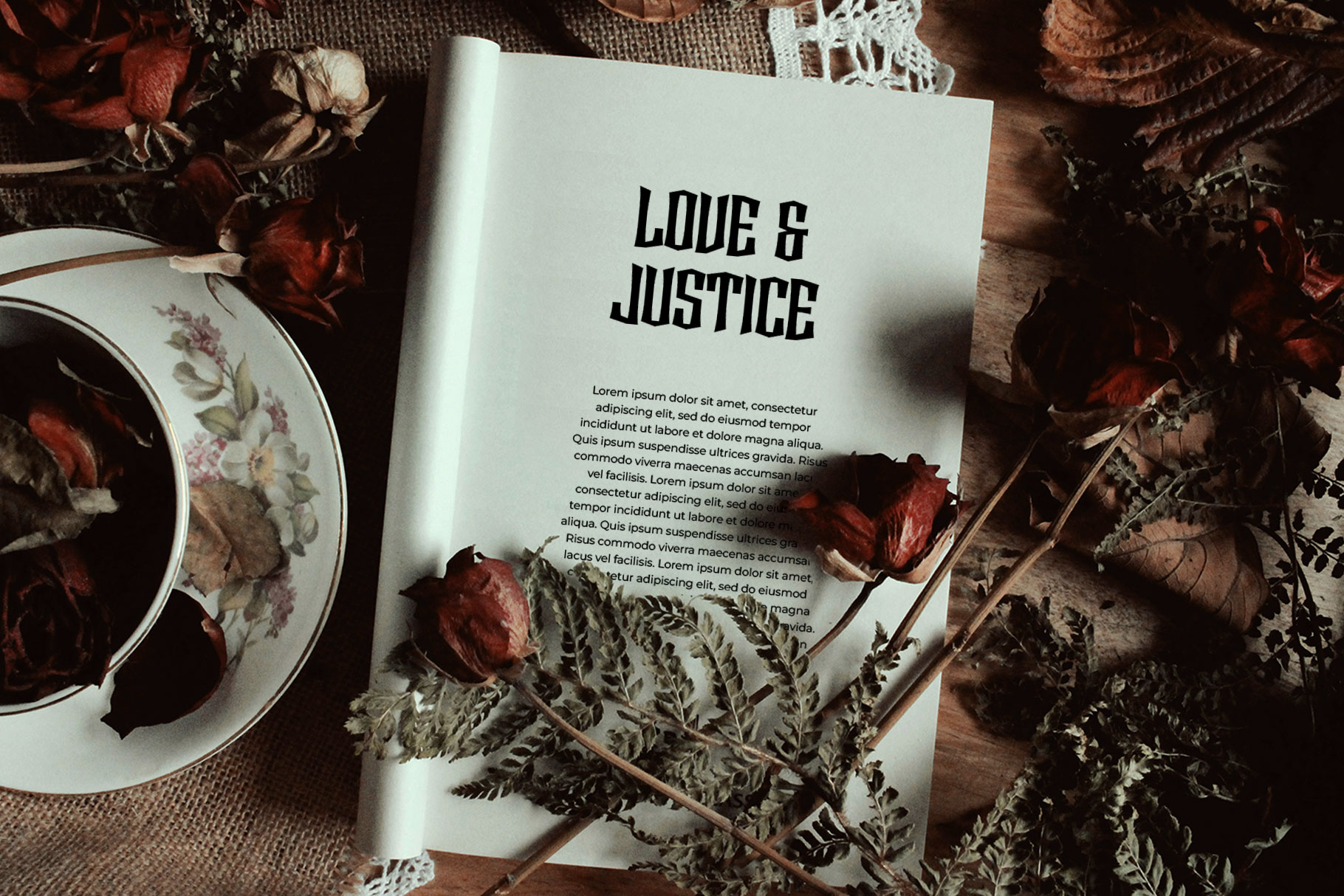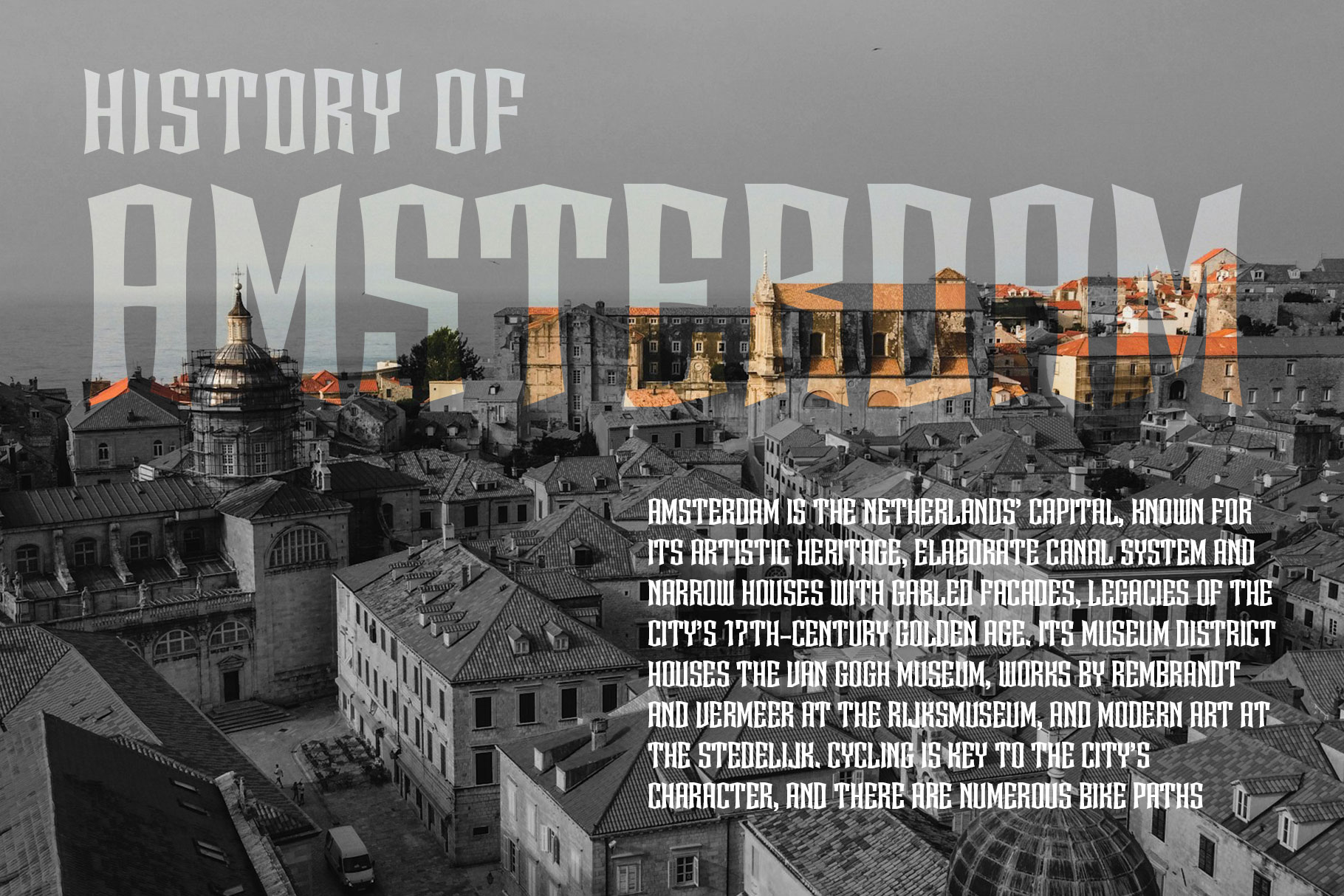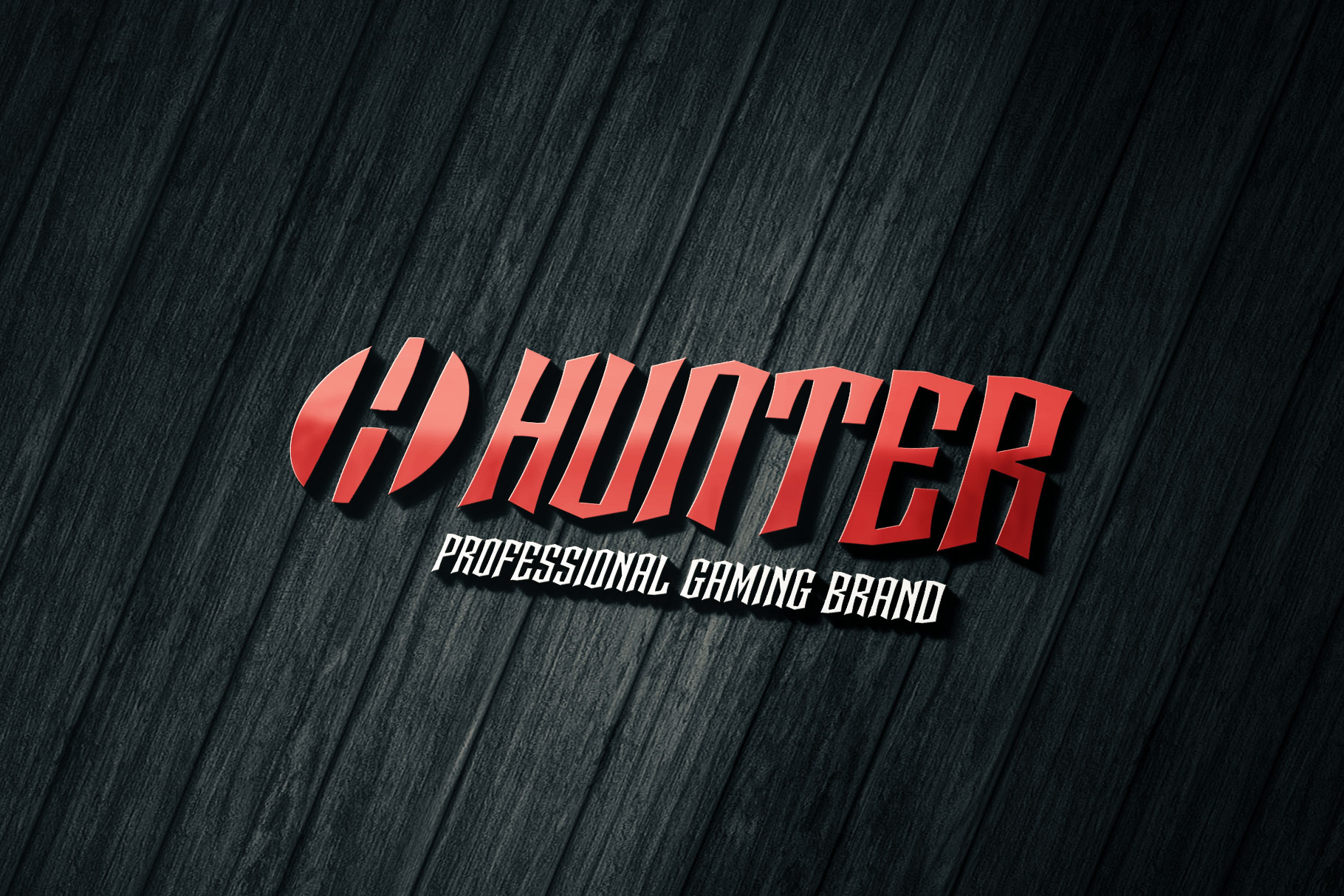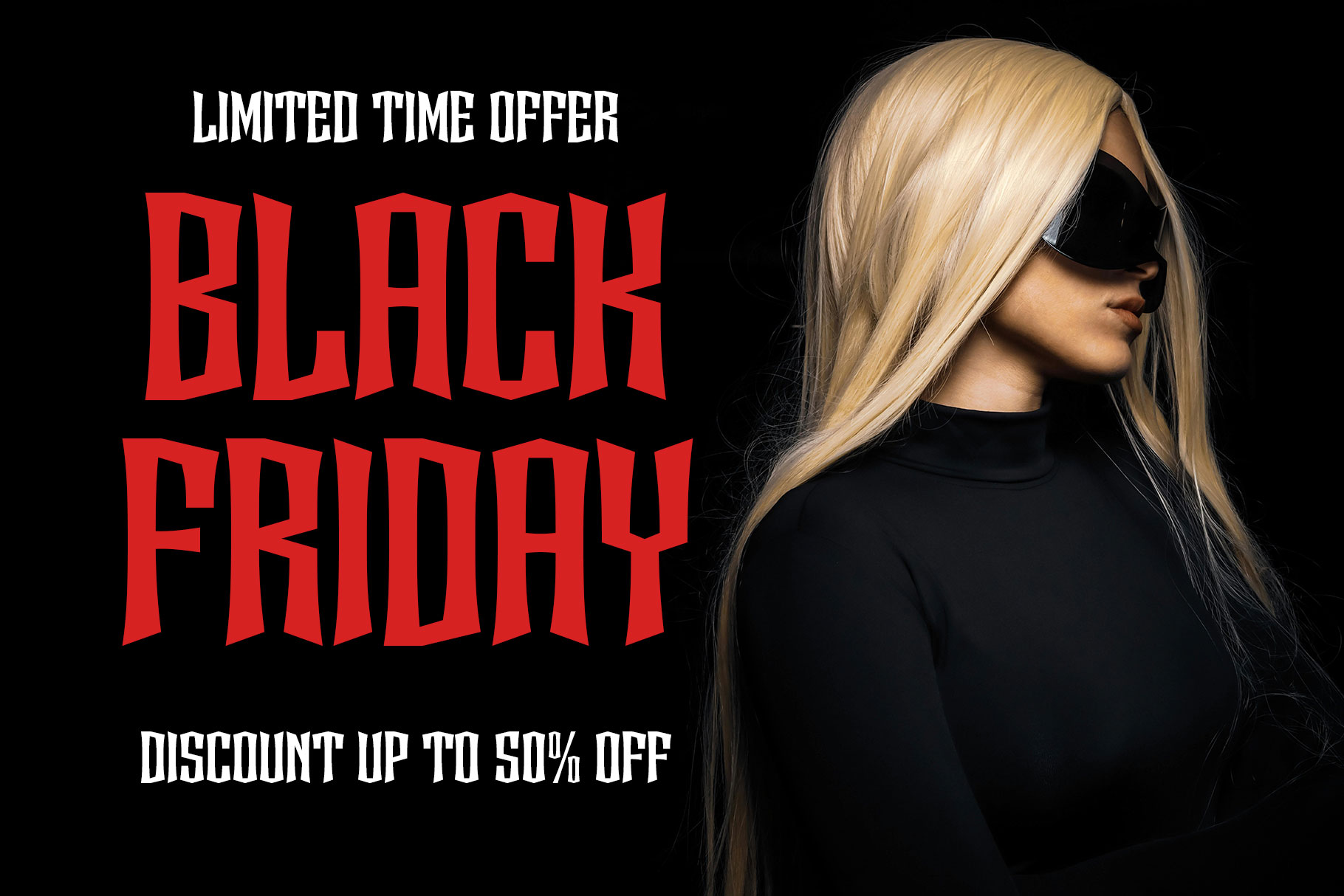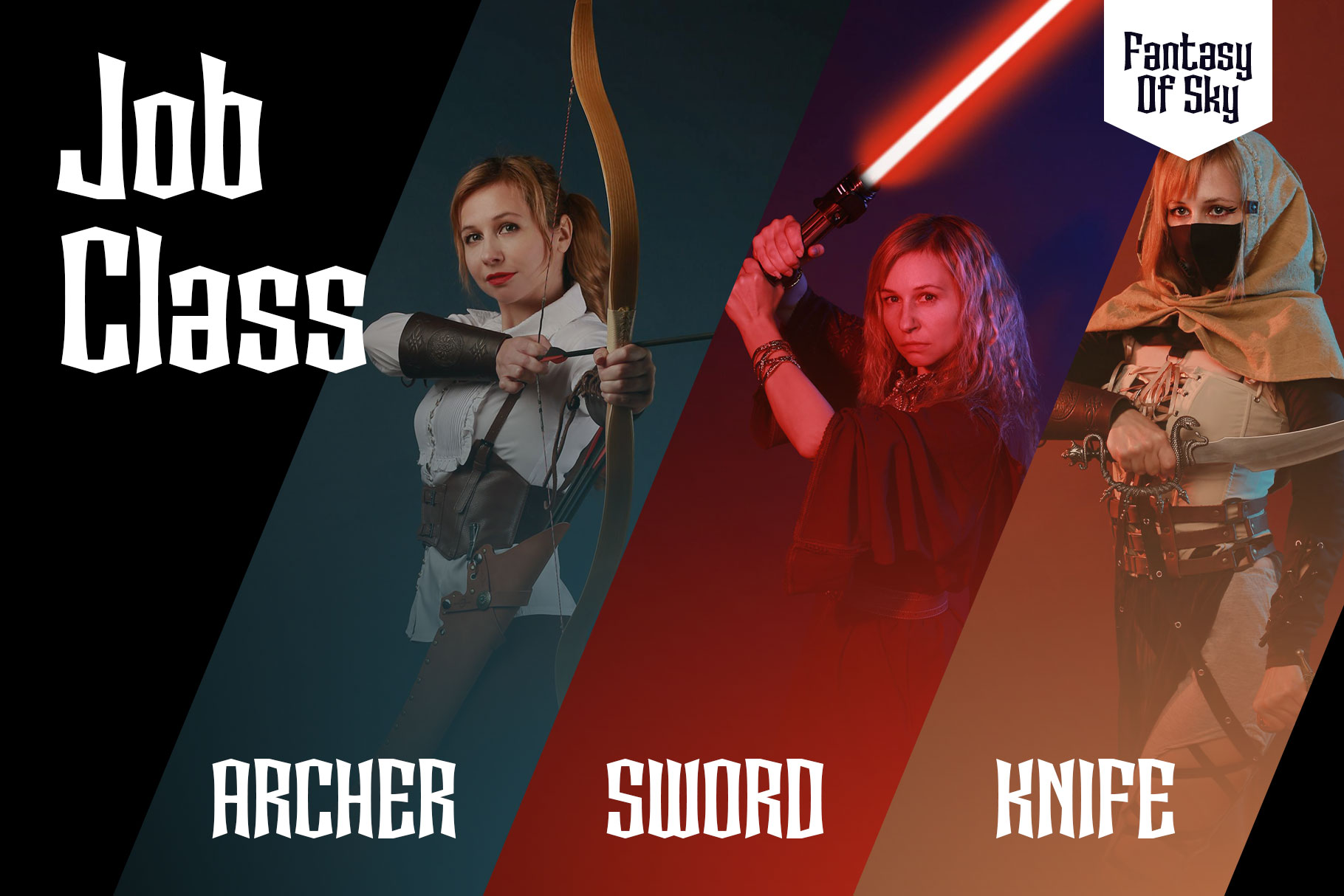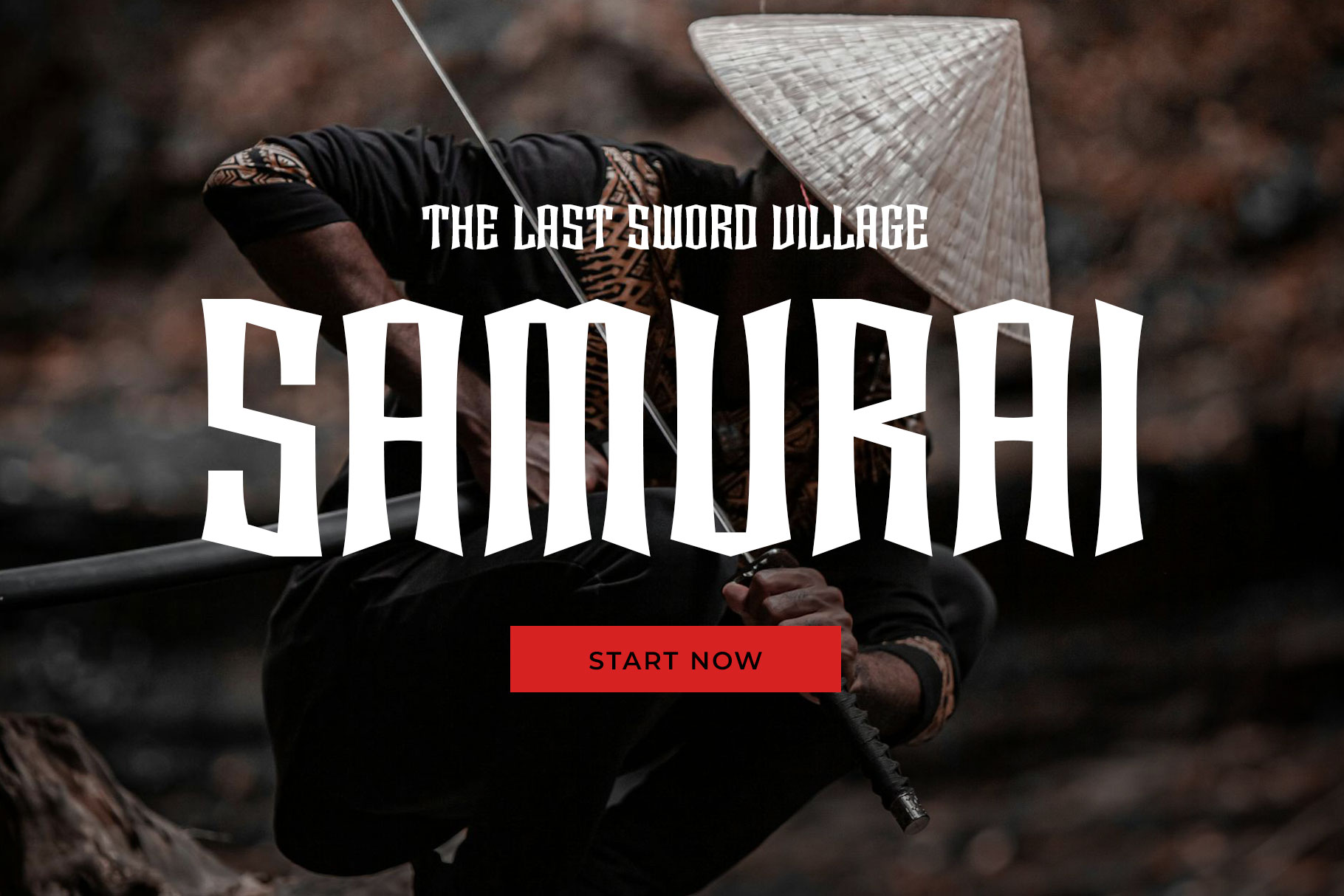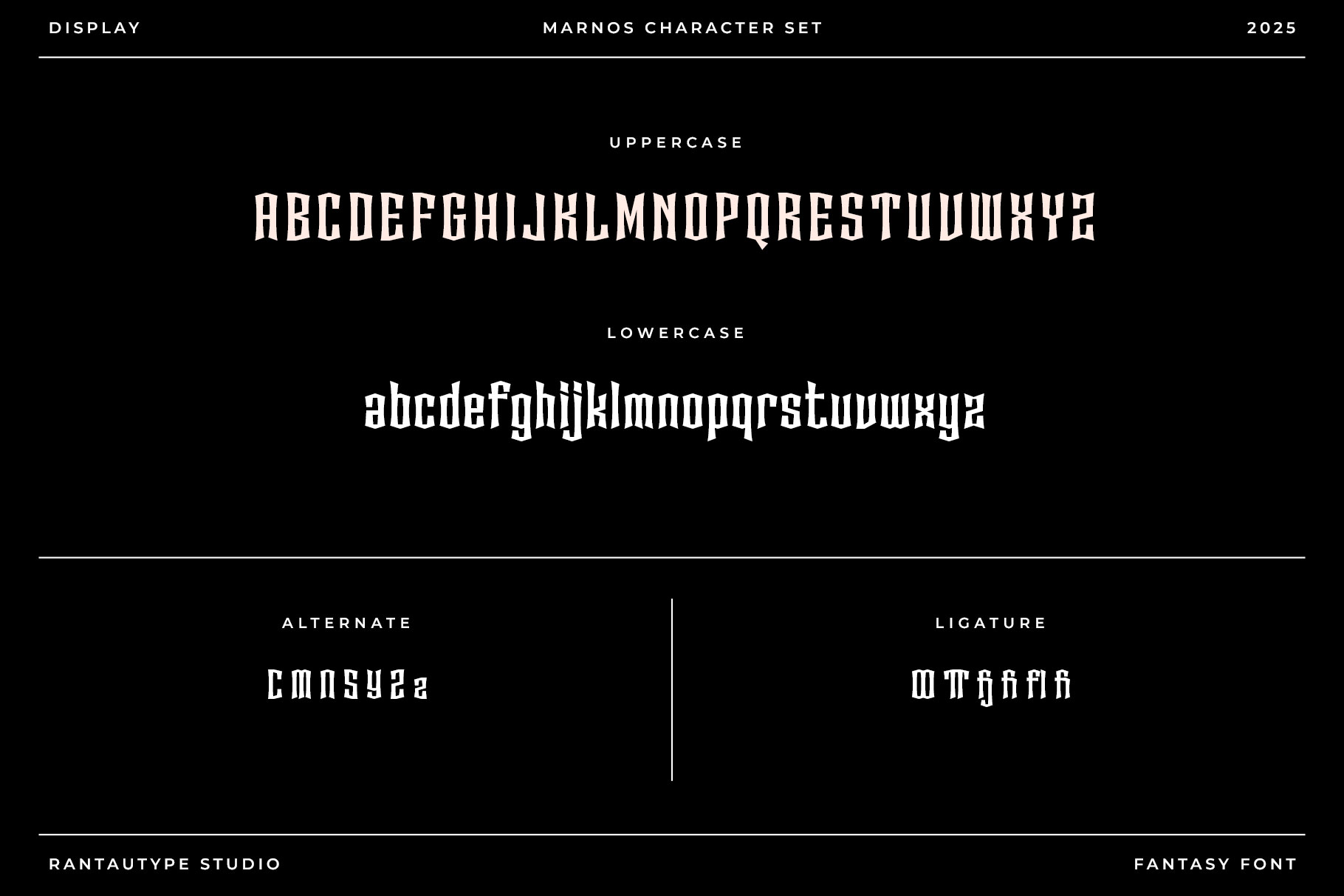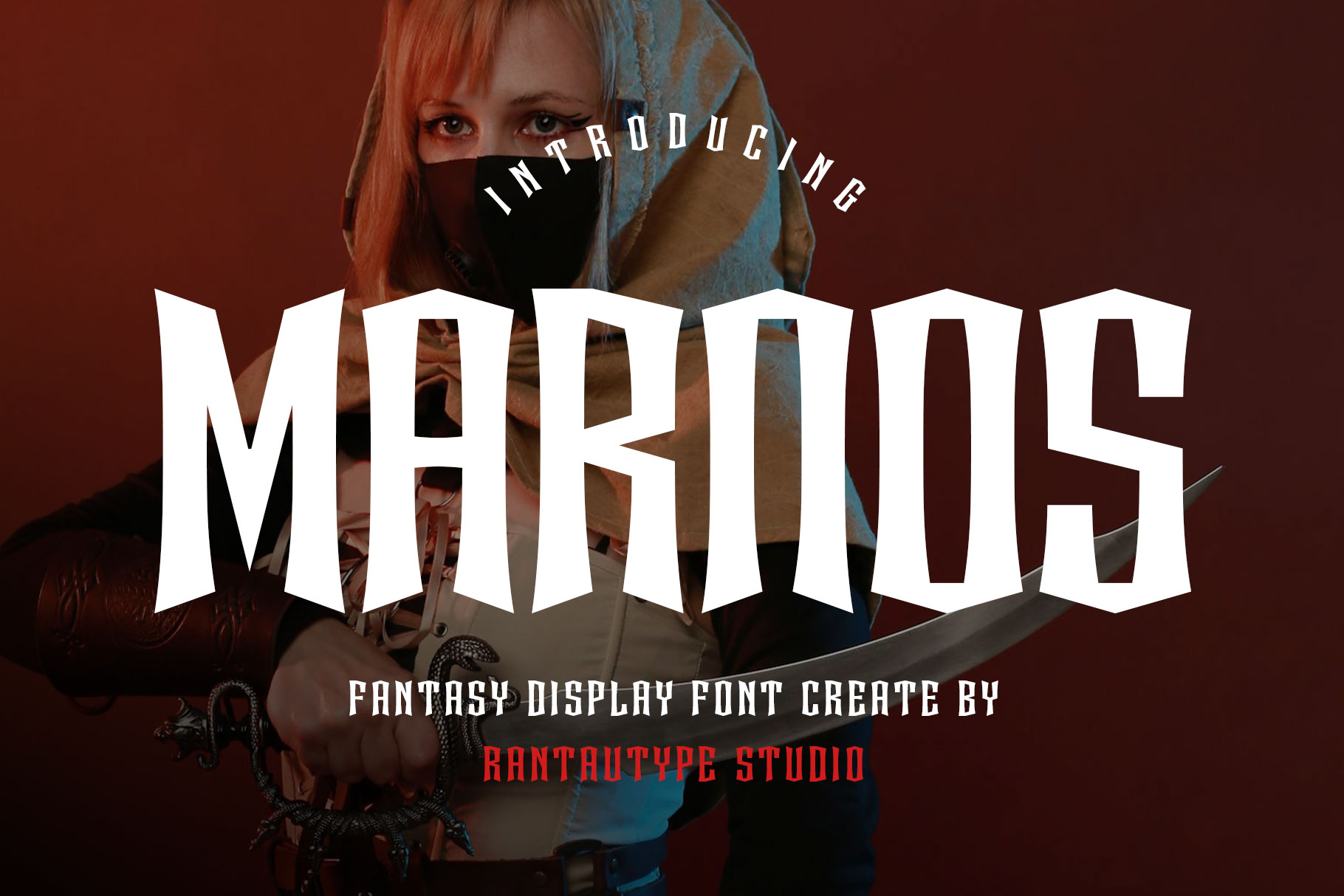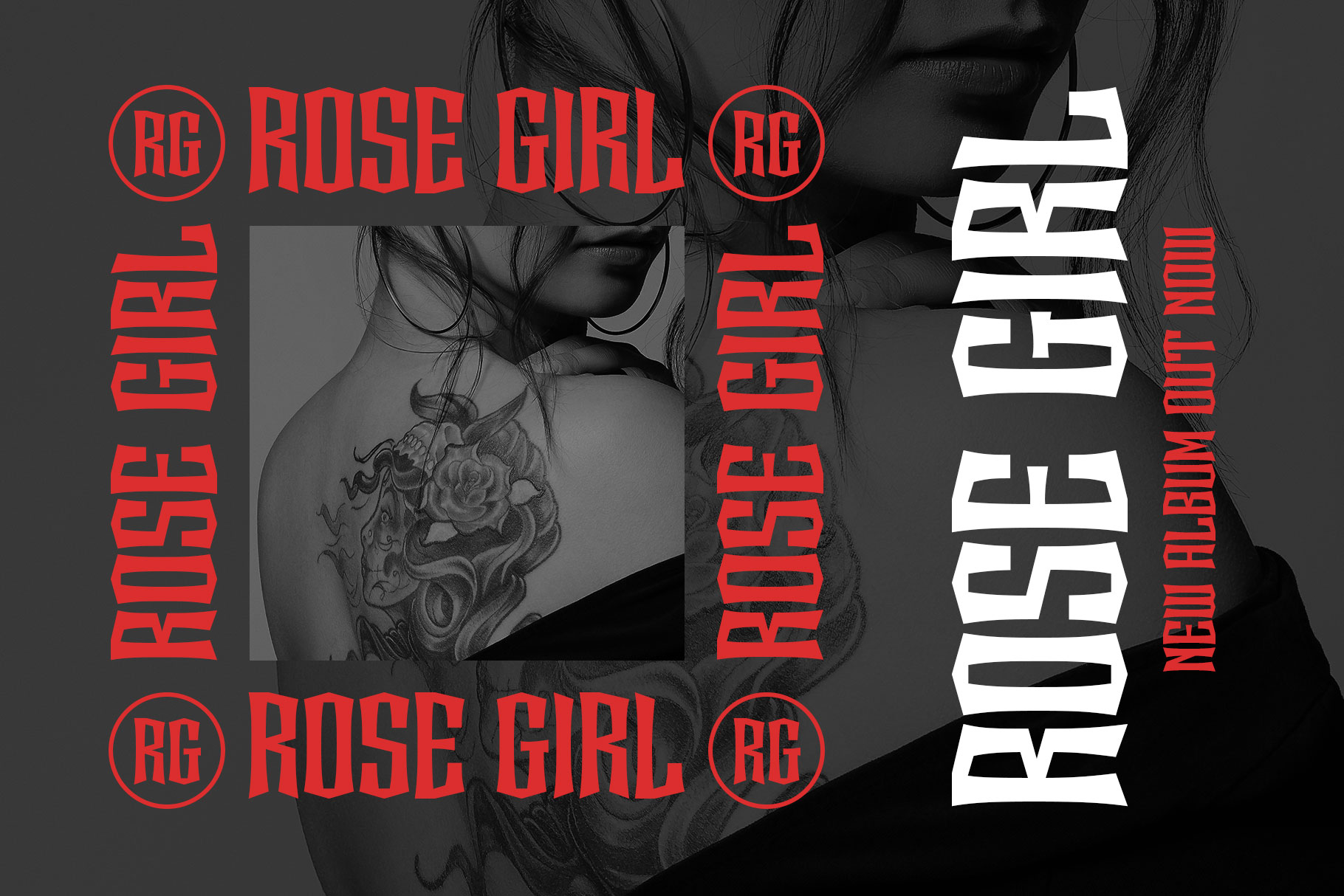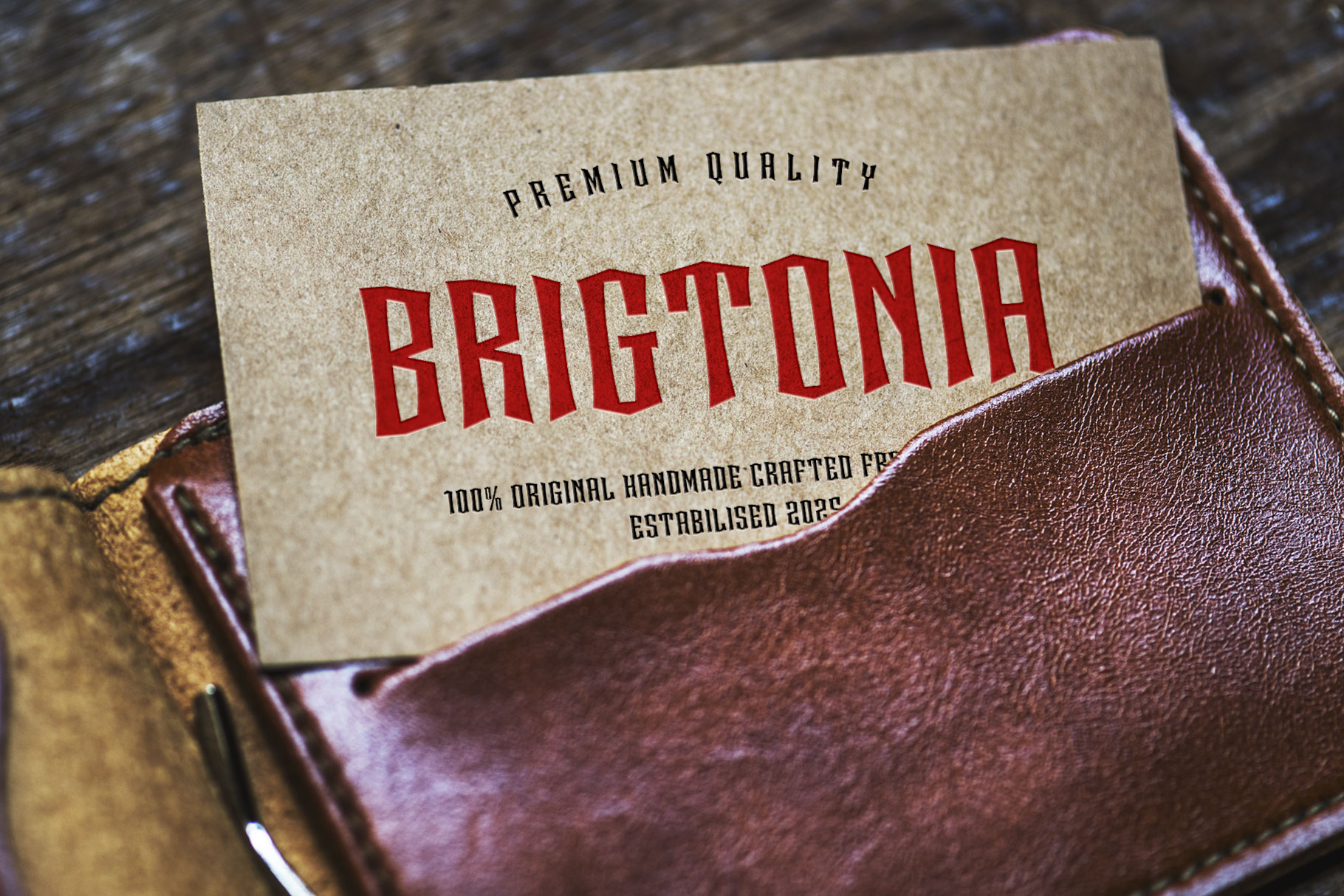
Marnos Fantasy Display Font
Marnos is display font with gothic style. Marnos bring contrast shape to create fantasy look. Marnos is a perfectly choice for any creative endeavor, chic, lifestyle design such as logotype, advertisements, watermark on photography, stationery, branding project, display and magazine, invitation, corporate brand, product design, label, business project and many other project with gothic or fantasy touch.